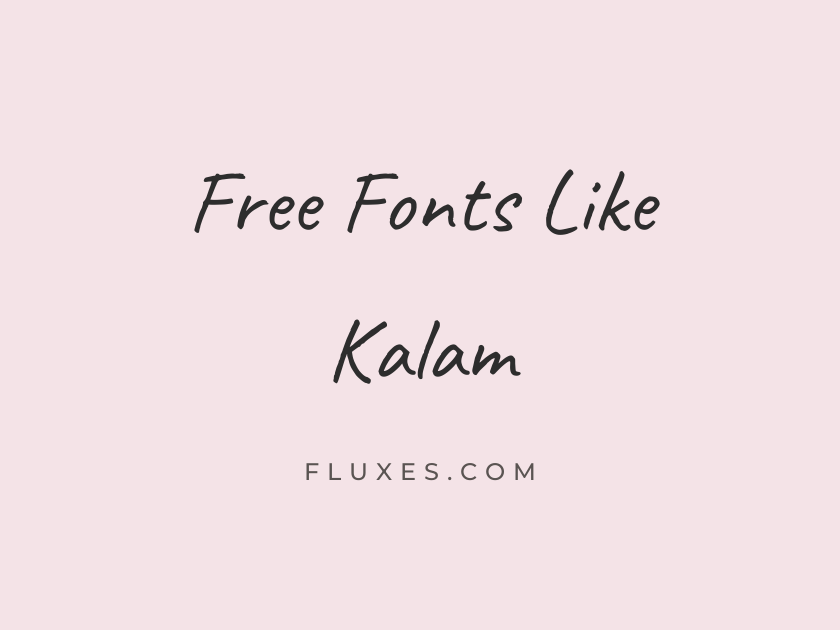
14 Best Free Fonts Similar to Kalam
Kalam earned its popularity because it looks like it was written by hand with a felt-tip pen, casual, warm, and legible at the same time. That combination is harder to find than it sounds; a lot of handwritten Google Fonts either lean too messy for body text or too stiff to feel personal. If you are hunting for free alternatives to Kalam for a blog, a personal brand, a greeting card, or a set of sticky-note style graphics, the fonts below share that same relaxed, human energy while each bringing a slightly different texture and rhythm to the page.
Notes to self, written in a hurry
Caveat is probably the closest sibling Kalam has on Google Fonts, sharing the same open-source lineage and that quick, looping cursive feel. It reads like genuine handwriting rather than a designed script, which makes it a favorite for quotes, journaling apps, and greeting card lettering. At bold weight it holds up nicely as a display headline, though it stays legible even at moderate body sizes.
Homework notes and classroom handouts
This one looks like it came off a worksheet written by a particularly neat student. The letterforms are rounded and evenly spaced, so it avoids the jittery look some handwriting fonts get when set in long passages. It suits kids’ educational materials, recipe cards, and any project that wants a friendly, unpretentious voice without sacrificing readability.
Sunday morning coffee and journaling
Bouncy, round, and a little playful, Indie Flower feels like it was doodled in a notebook margin. It works best at larger sizes for headlines, labels, or short callouts, since the loose baseline can get muddy in dense paragraphs. Pair it with a clean sans body font to balance its informality.
Sketchbook notes for a new project
There is a slightly technical, drafting-table quality to this face, as if an architect jotted margin notes on a blueprint. It has more structure and angularity than most handwriting fonts, giving it a confident, purposeful feel rather than a soft or whimsical one. Use it for annotations, infographic labels, or anywhere you want handwriting that still reads as precise.
Handwritten wishes just for you
Thin strokes and a forward lean give Shadows Into Light a breezy, fast-written quality, like a note dashed off on the way out the door. It is best reserved for short lines, since the delicate weight thins out and loses presence in long blocks of text. Greeting cards, invitations, and social graphics are its natural home.
Doodles, stickers, and cute little labels
Gochi Hand has a slightly wobbly, childlike charm that makes it feel less polished and more genuinely scrawled than many handwriting fonts. It suits playful branding, sticker sheets, and packaging aimed at a younger or craft-oriented audience. Keep it to short bursts of text; its irregularity gets tiring over full paragraphs.
Neucha
Friendly notes scribbled in the margin
Neucha
Rounder and slightly more upright than Kalam, Neucha reads as calm and approachable rather than energetic. Originally developed with Cyrillic support in mind, it also handles Latin text gracefully, which makes it a solid pick for multilingual blogs or personal sites that want warmth without excess flourish.
Handlee
A little reminder before you go
Handlee
Handlee sits in an easy middle ground, casual enough to feel personal but tidy enough to use in interface copy, form labels, or short blog intros. Its consistent stroke width keeps it from looking too decorative, which is a relief if you have found other handwriting fonts too fussy for practical use.
Comic Neue
Casual captions with a friendly tone
Comic Neue
Comic Neue exists to give the much-maligned Comic Sans a cleaner, more design-friendly redo, and the result is a rounded, informal font that still reads as intentional rather than accidental. It works well in speech bubbles, casual UI copy, and meme-adjacent graphics where a light touch of humor is welcome. This is a good option when you want playful without veering into full cursive handwriting.
Sticky notes and classroom reminders
Chunky and slightly uneven, Schoolbell looks like chalk lettering on a school notice board. It is best used sparingly, for headers or short labels, since its heavier strokes and irregular spacing can feel cluttered in long copy. It pairs nicely with plain sans-serif body text for a nostalgic, back-to-school mood.
Nanum Pen Script
Quick thoughts jotted on a napkin
Nanum Pen Script
Originally designed in Korea, Nanum Pen Script has a fluid, brush-pen quality with thinner entry strokes and softer curves than Kalam. It brings an East Asian pen-lettering sensibility that feels fresh next to more common Western handwriting fonts. Use it for quotes, captions, or anywhere a lighter, more fluid line is wanted.
Tall letters scrawled across the page
Test at the actual size you plan to use before finalizing. Many free handwriting fonts on Google Fonts look charming at 24px and blur into illegibility at 12px.
Kalam’s appeal comes from feeling personal rather than manufactured, and each of these alternatives offers its own version of that same handmade warmth. Try a few side by side in your actual layout, since the right choice often comes down to subtle differences in weight, slant, and rhythm that only show up in context.